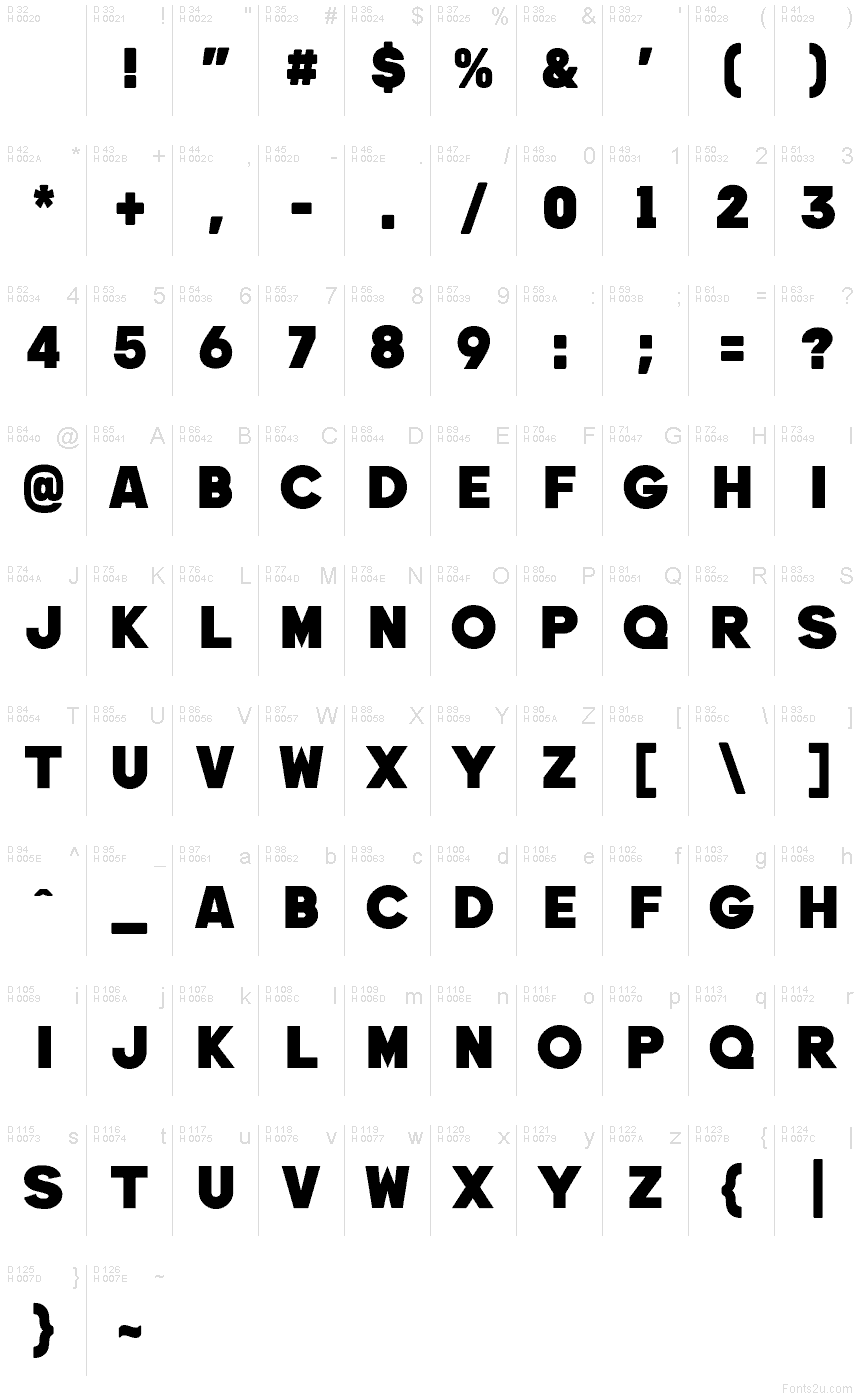
Edges
Edges font by Graphicxell is a bold, captivating sans serif font that embodies a clean and geometric structure. With its structured, modern, and slightly industrial appearance, the font has everything needed to attract attention while still being legible. Its sharp edges create visual harmony within any text to give it character and distinctive style.